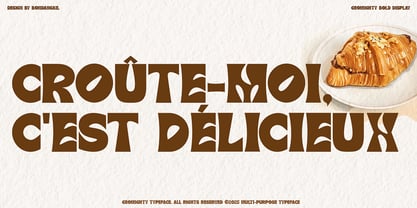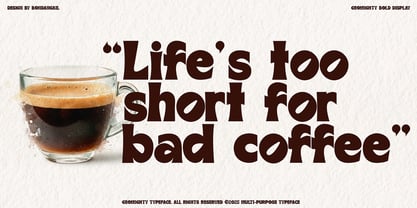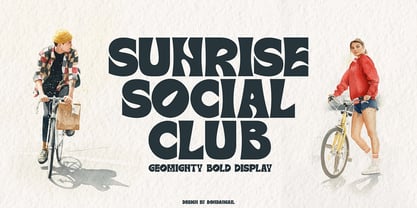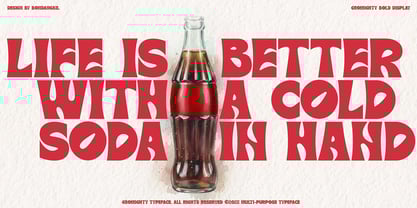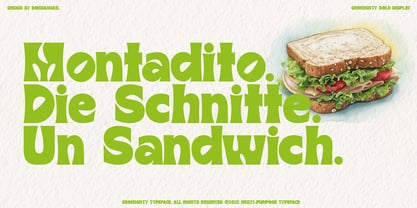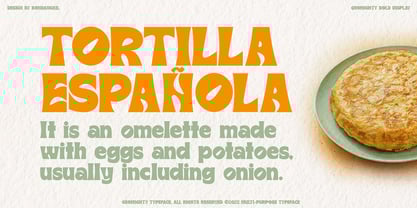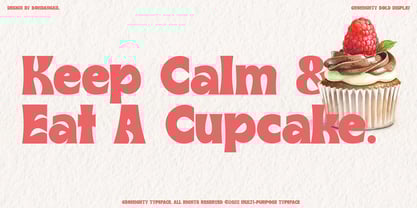
Geomighty
por BondanGail
La familia tipográfica Geomighty fue diseñada por Bondan Gail Saputro y publicada por BondanGail. Geomighty contiene 1 estilos. Más información sobre esta familia
Geomighty Bold Display is a striking, personality-packed typeface designed to make any project stand out. Its chunky geometric shapes, playful curves, and retro-inspired flair create an energetic, modern look that feels both bold and approachable. Perfect for branding, posters, packaging, and lifestyle visuals, this font delivers instant impact and a unique voice that turns simple words into statement pieces.
Diseñadores: Bondan Gail Saputro
Fundición: BondanGail